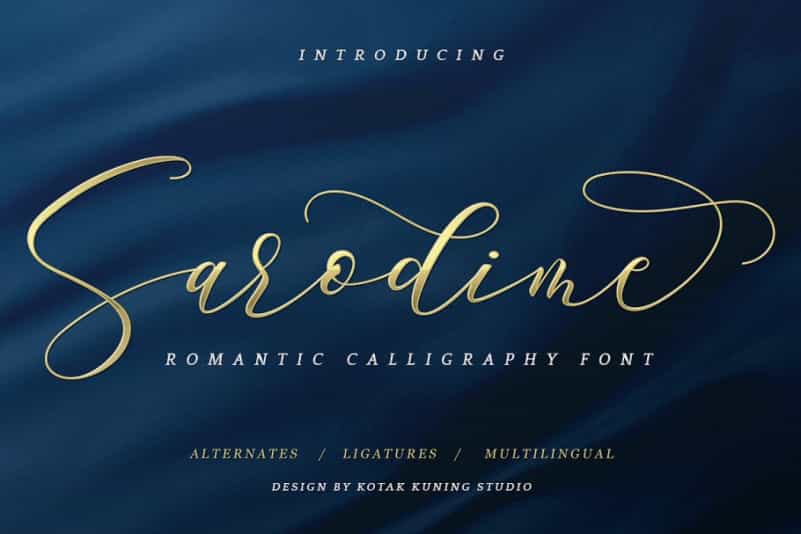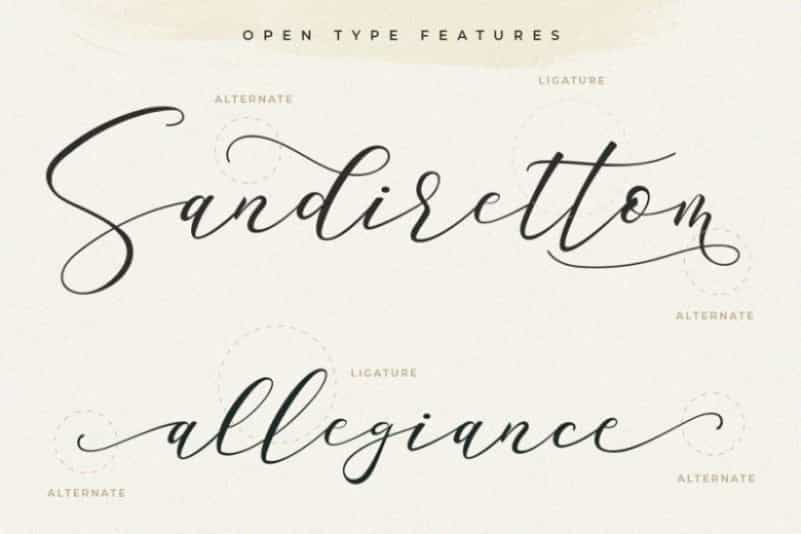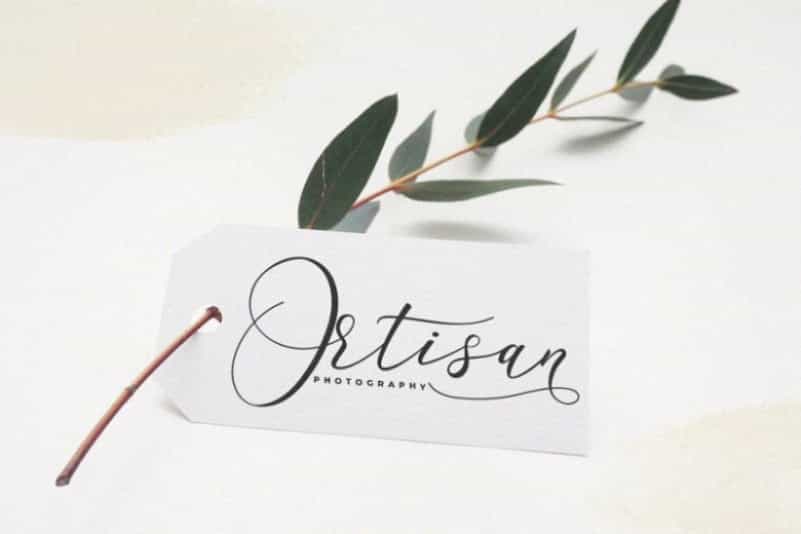
Sarodime Font – If you want a new calligraphic typeface for your project, this font is the best option. This is a stylish calligraphy font, it was created to show the elegance and style. Sarodime Script Font is a romantic calligraphy font with the natural & stylish flow. This set of scripts is a great tool for personal branding.